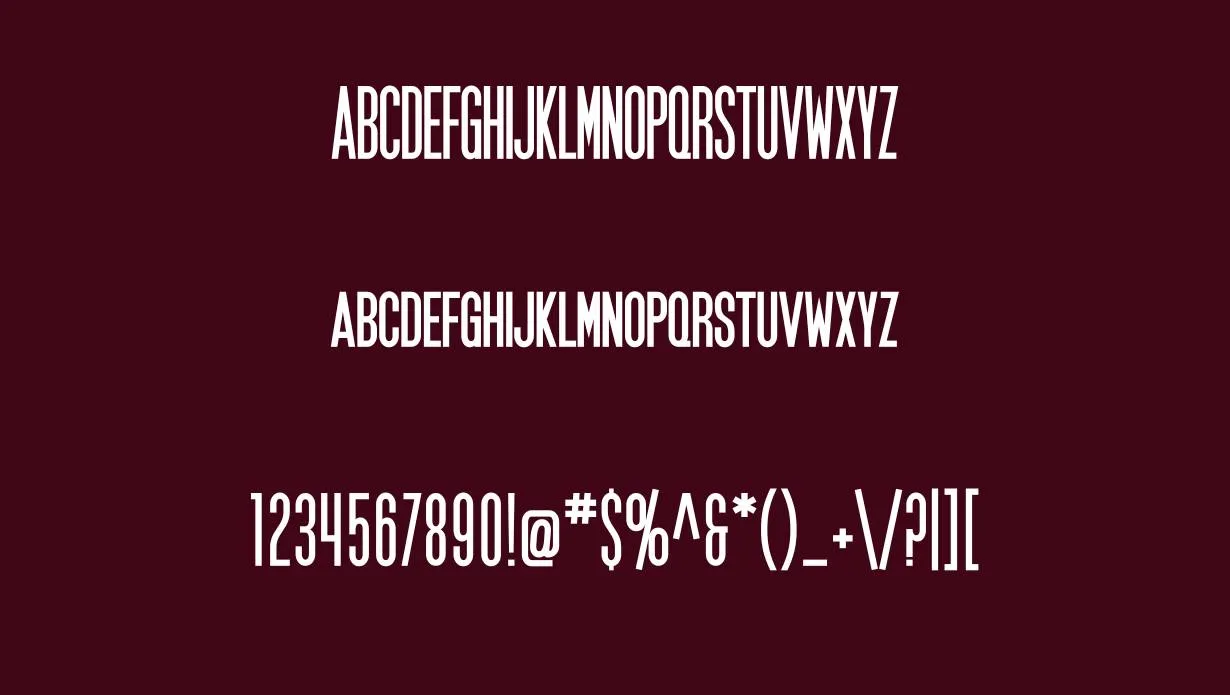
SF Movie Poster Font is like the bold title of an exciting film. Each letter seems ready for a big adventure as if they’re about to star in a thrilling story. When you use SF Movie Poster Font, your writing becomes like the attention-grabbing opening credits of a blockbuster movie.
SF Movie Poster Font
It’s like the excitement of a grand premiere night, making your words stand out with a dramatic and captivating presence. Pick an SF Movie Poster Font when you want your writing to have the thrilling vibe of a big-screen escapade.